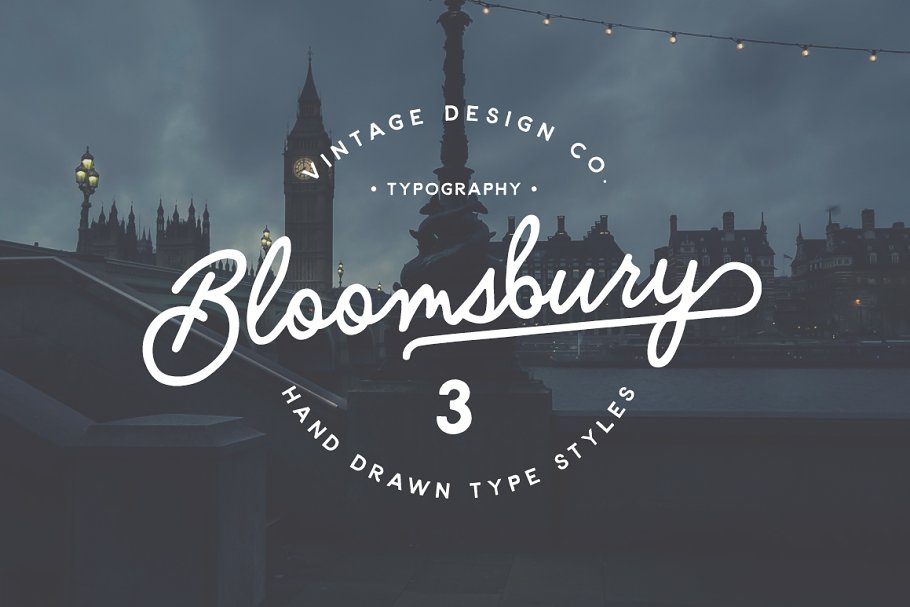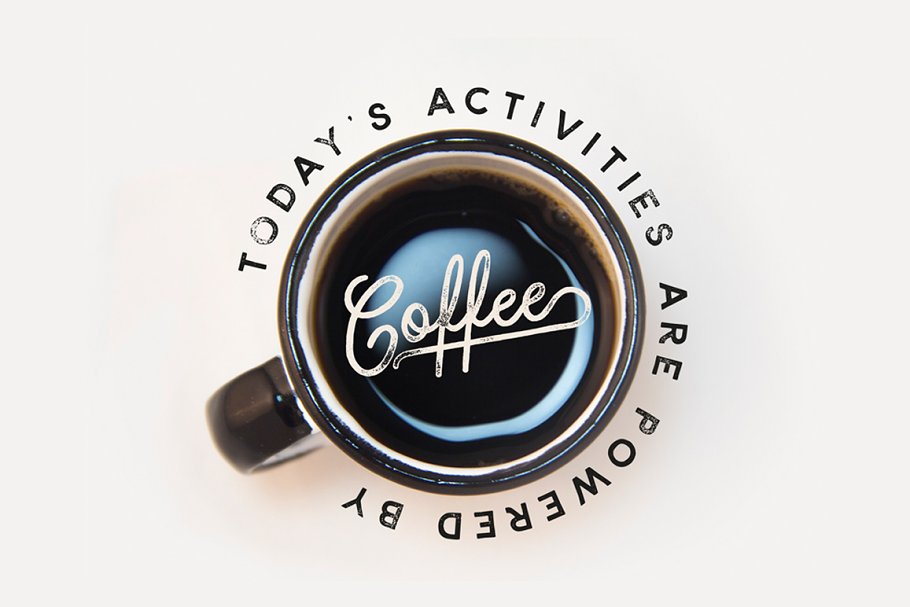
About the Bloomsbury Script Sans Serif Font
Bloomsbury – A hand drawn typeface in 3 styles – Script, Sans & Serif Use in combination with each other to make awesome type designs for logos, posters, album covers, packaging, Instagram posts, etc, The script version includes 3 different sized end letter flourishes, access through the glyphs panel in your favourite design programs, Language support is also include for the following:Afrikaans, Albanian, Asu, Basque, Bemba, Bena, Bosnian, Chiga, Congo Swahili, Cornish, Croatian, Czech, Danish, Dutch, Embu, English, Estonian, Faroese, Filipino, Finnish, French, Galician, Ganda, German, Gusii, Hungarian, Icelandic, Indonesian, Irish, Italian, Jola-Fonyi, Kabuverdianu, Kalenjin, Kamba, Kikuyu, Kinyarwanda, Latvian, Lithuanian, Luo, Luyia, Machame, Makhuwa-Meetto, Makonde, Malagasy, Malay, Maltese, Manx, Meru, Morisyen, North Ndebele, Norwegian Bokmål, Norwegian Nynorsk, Nyankole, Oromo, Polish, Portuguese, Romanian, Rombo, Rundi, Rwa, Samburu, Sango, Sangu, Sena, Shambala, Shona, Slovak, Slovenian, Soga, Somali, Spanish, Swahili, Swedish, Swiss German, Taita, Teso, Turkish, Vietnamese, Vunjo, Welsh, Zulu